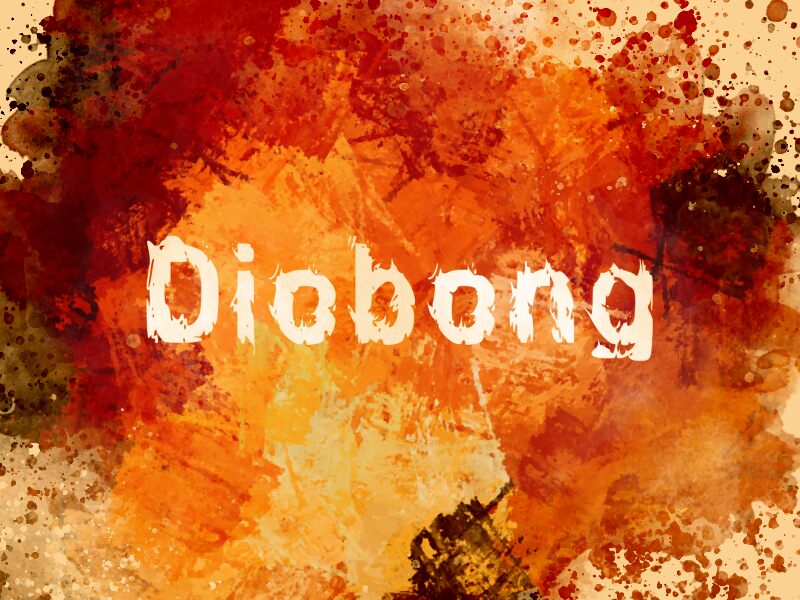
Diobong
Diobong is a bold display font designed by Wahyu Eka Prasetya. Its scary style makes it perfect for horror movie posters, gothic art projects, and even Halloween decorations. Unleash your creativity with this unique font!